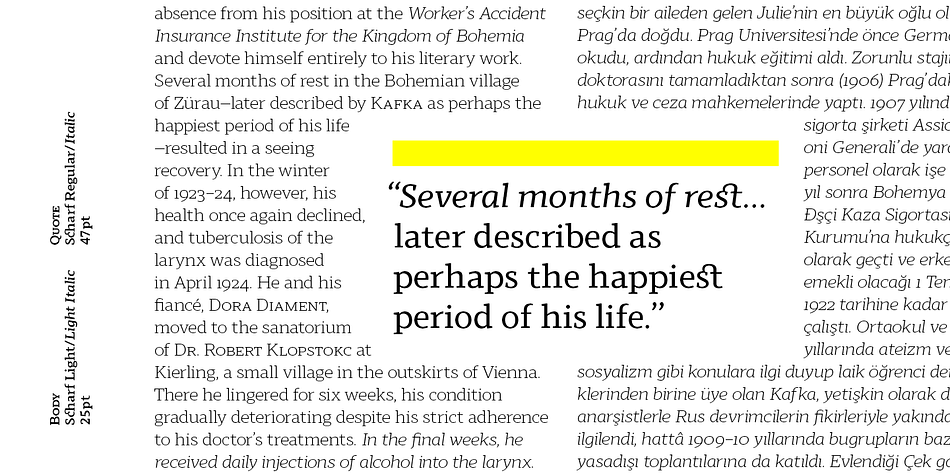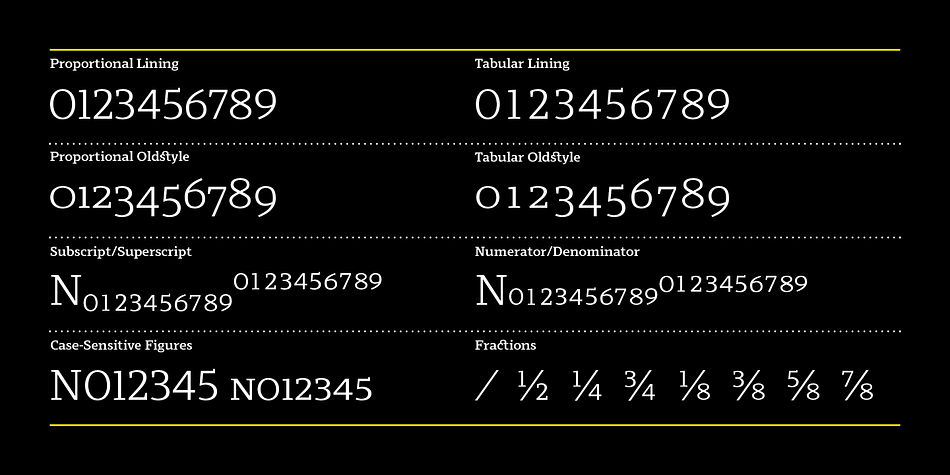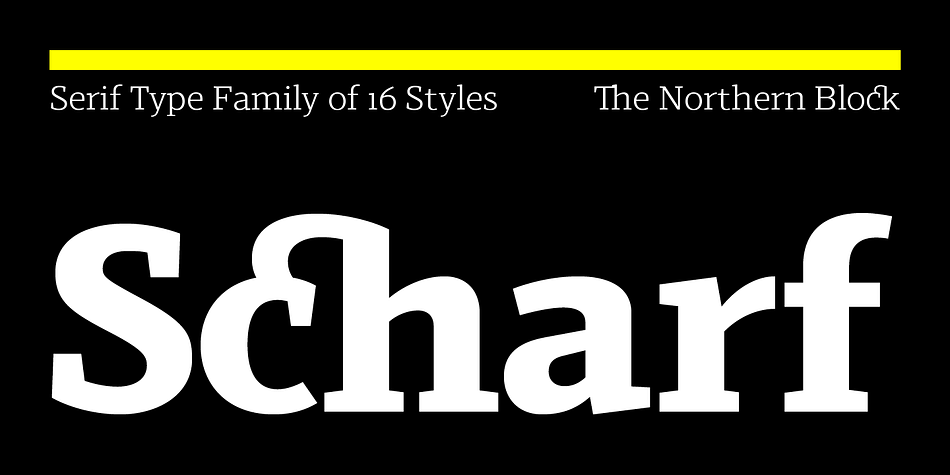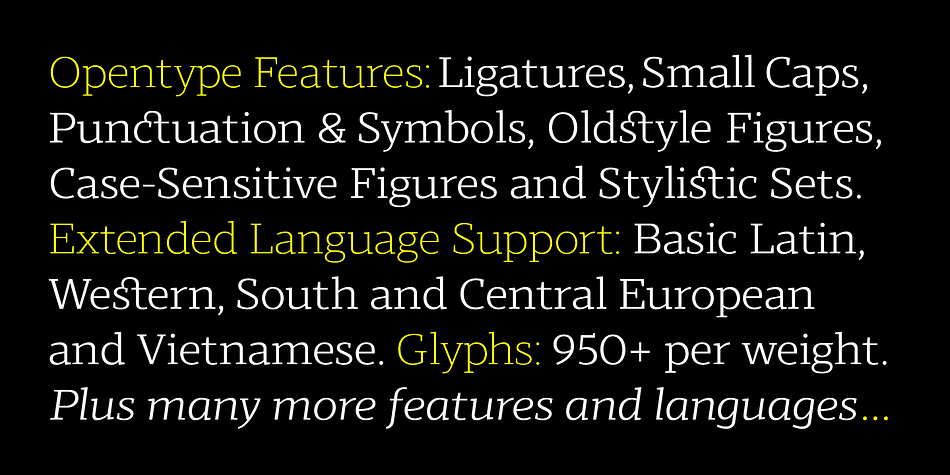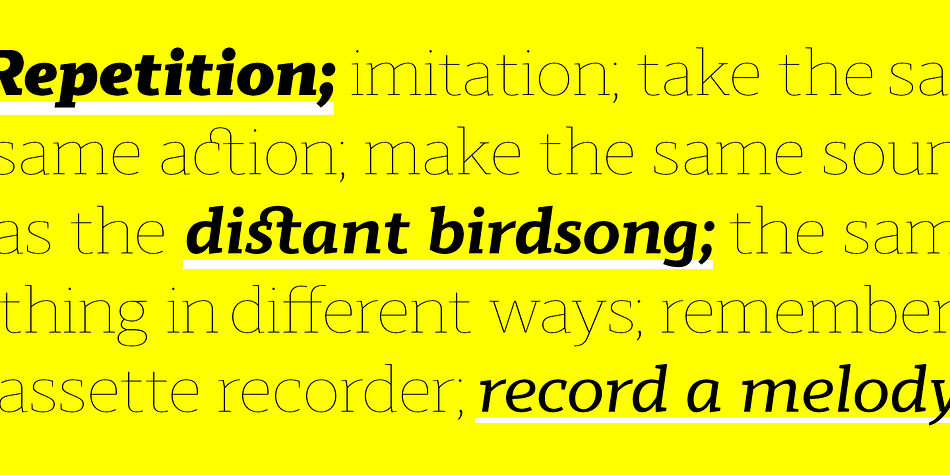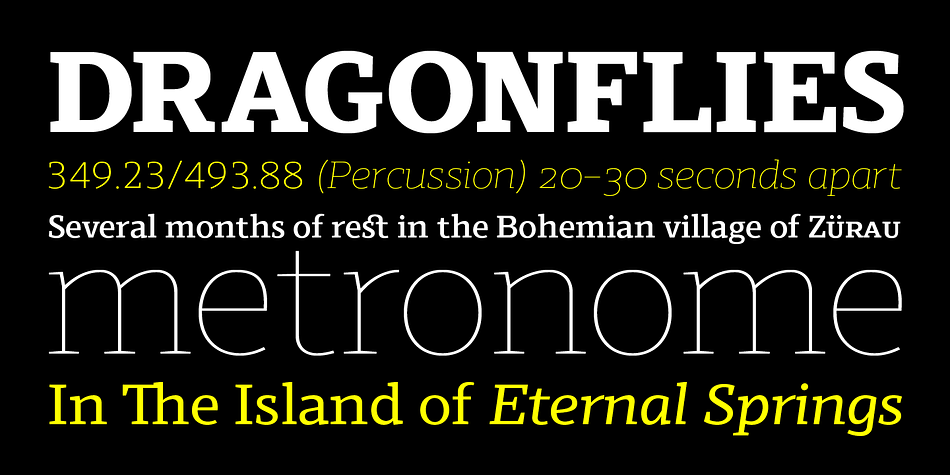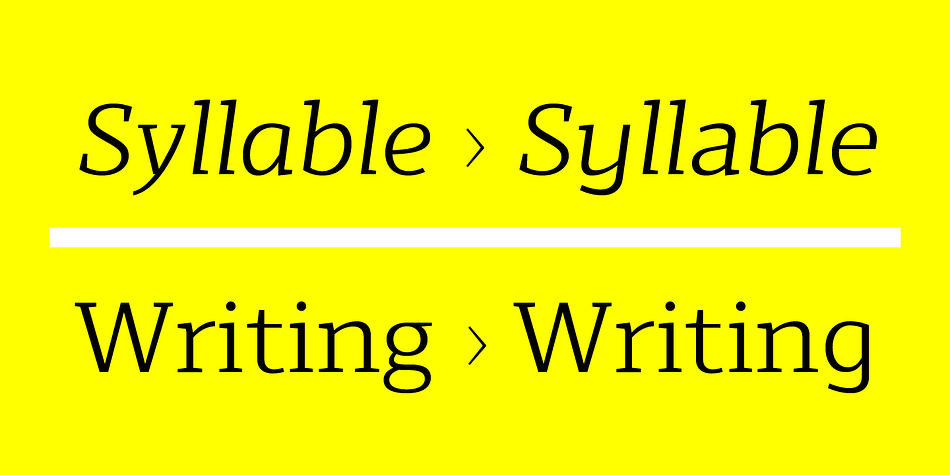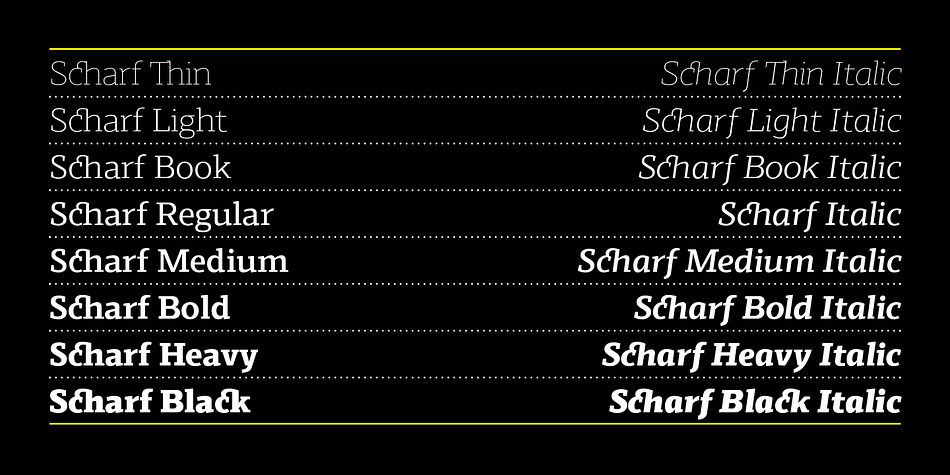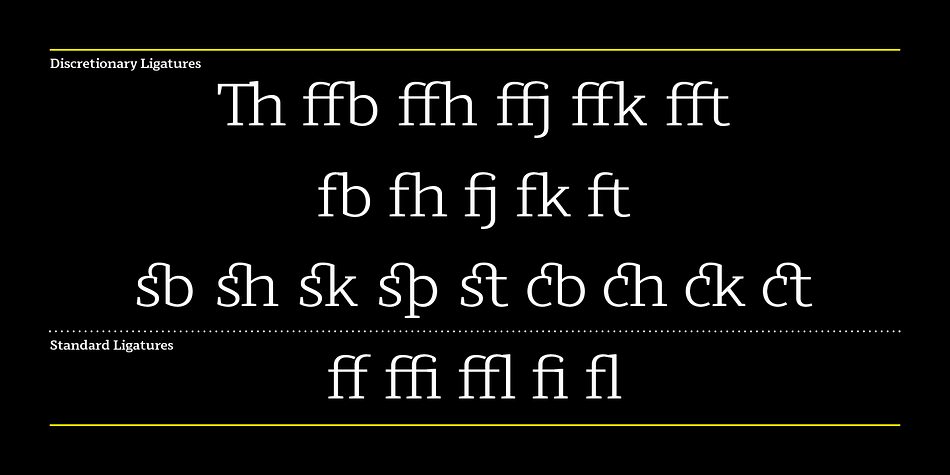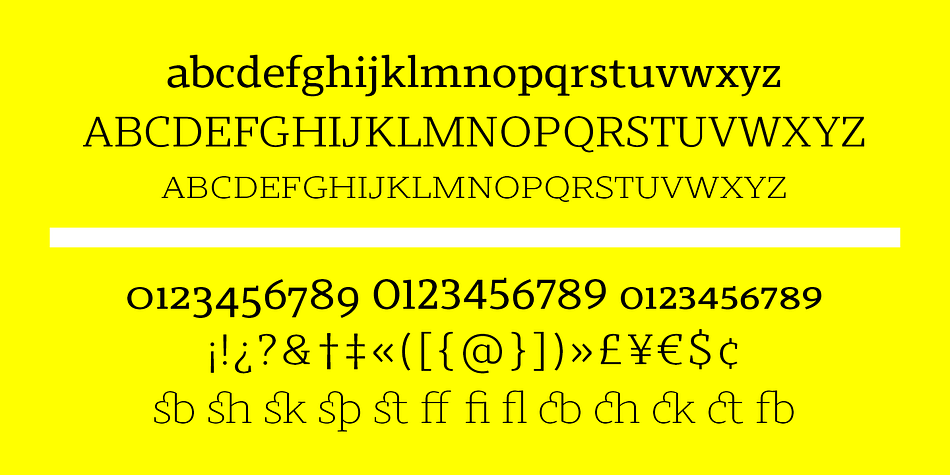
Designed by Jonathan Hill, Scharf is a serif font family. This typeface has sixteen styles and was published by The Northern Block.
A sturdy serif designed as a companion to the Schar font family. Using Schar as a template, accurate serif details are carefully drawn into each character, improving readability and further enhancing the fonts fluid and dynamic personality. Scharf, used in conjunction with the sans serif becomes an extensive type system, purposely suited for editorial design and complex typographic hierarchy. Details include eight weights with matching true italics, over 950 characters per font with alternative lowercase a, e, g and y, eight variations of numerals, true small caps with accents, discretionary ligatures and language support covering Western, South and Central European and Vietnamese.